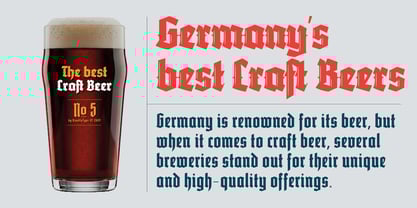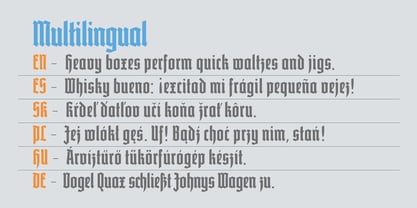
Vivala bl
by Johannes Hoffmann
The Vivala bl Font Family was designed by Johannes Hoffmann and published by Johannes Hoffmann. Vivala bl contains 6 styles and family package options. More about this family
Vivala BL features a high black-to-white ratio, making it ideal for compact and expressive typography. Its ornamental character lends itself perfectly to decorative uses such as posters, logos, and illustrated book titles. Despite its bold appearance, the typeface maintains a narrow style that performs well even at smaller sizes. A rich set of contextual alternates and ligatures enhances its versatility and visual rhythm, allowing for dynamic and sophisticated typesetting.
Johannes Hoffmann is a type designer based in Düsseldorf with a background in creative direction and innovation management. His typefaces are characterized by extensive language support and a wide range of OpenType features. In addition to retail fonts, he creates custom typefaces for global campaigns and packaging design, combining technical precision with a strong sense of branding.